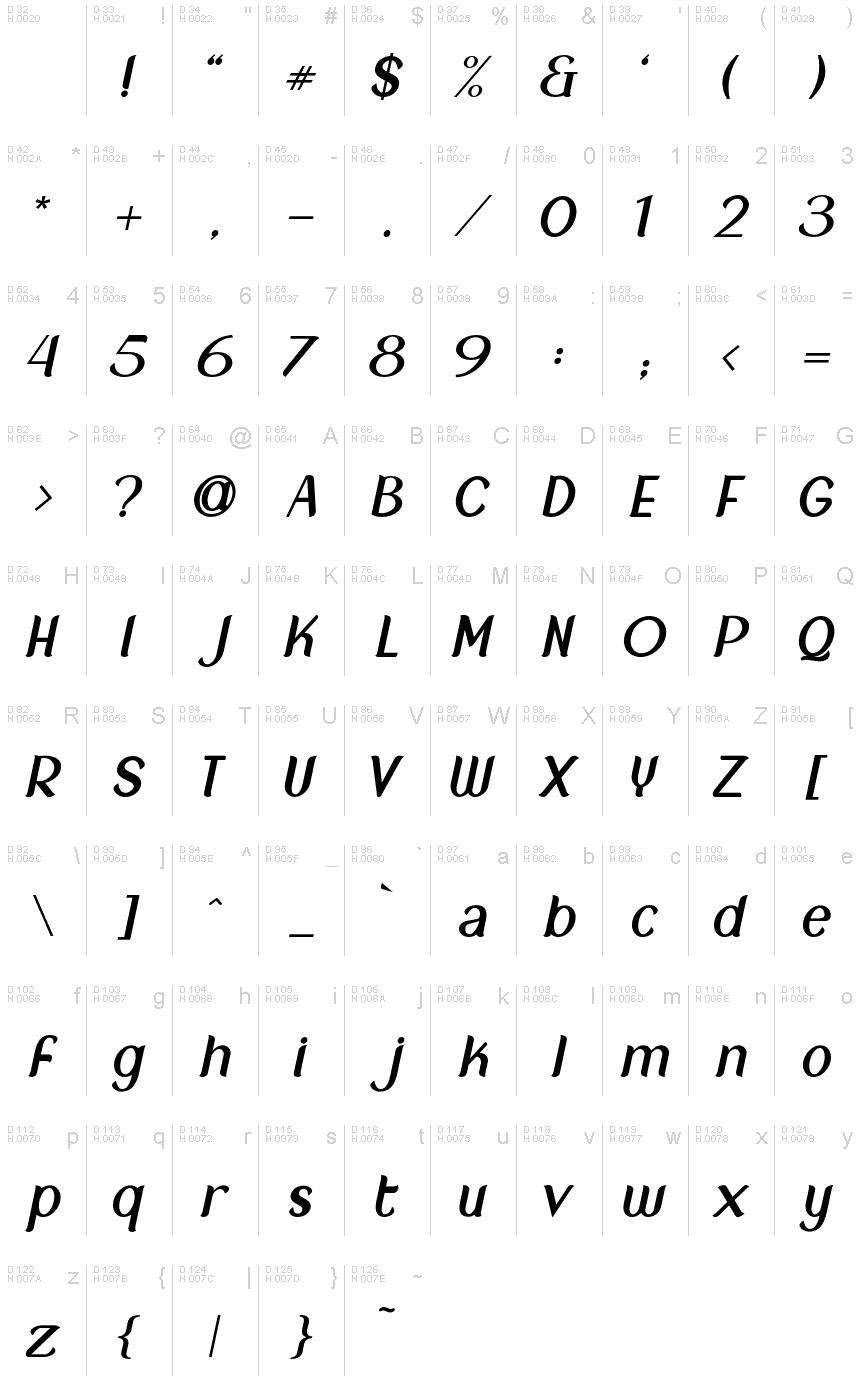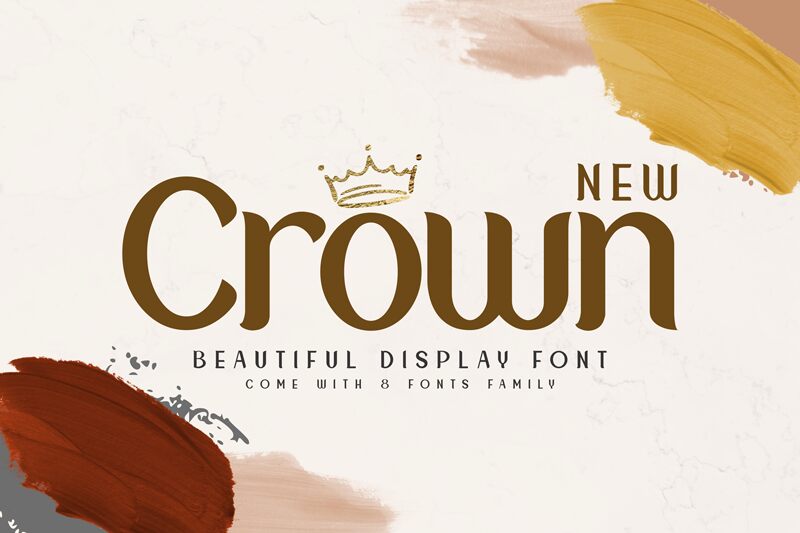
NewCrown-NormalItalic_DEMO
New Crown is a display sans font. Comes with 8 fonts family. Great for logotype, branding, packaging design, poster design, website / display, editorial, headline, and more.
1. Uppercase and lowercase characters
2. Supports international languages
3. Opentype features: alternates and ligatures.